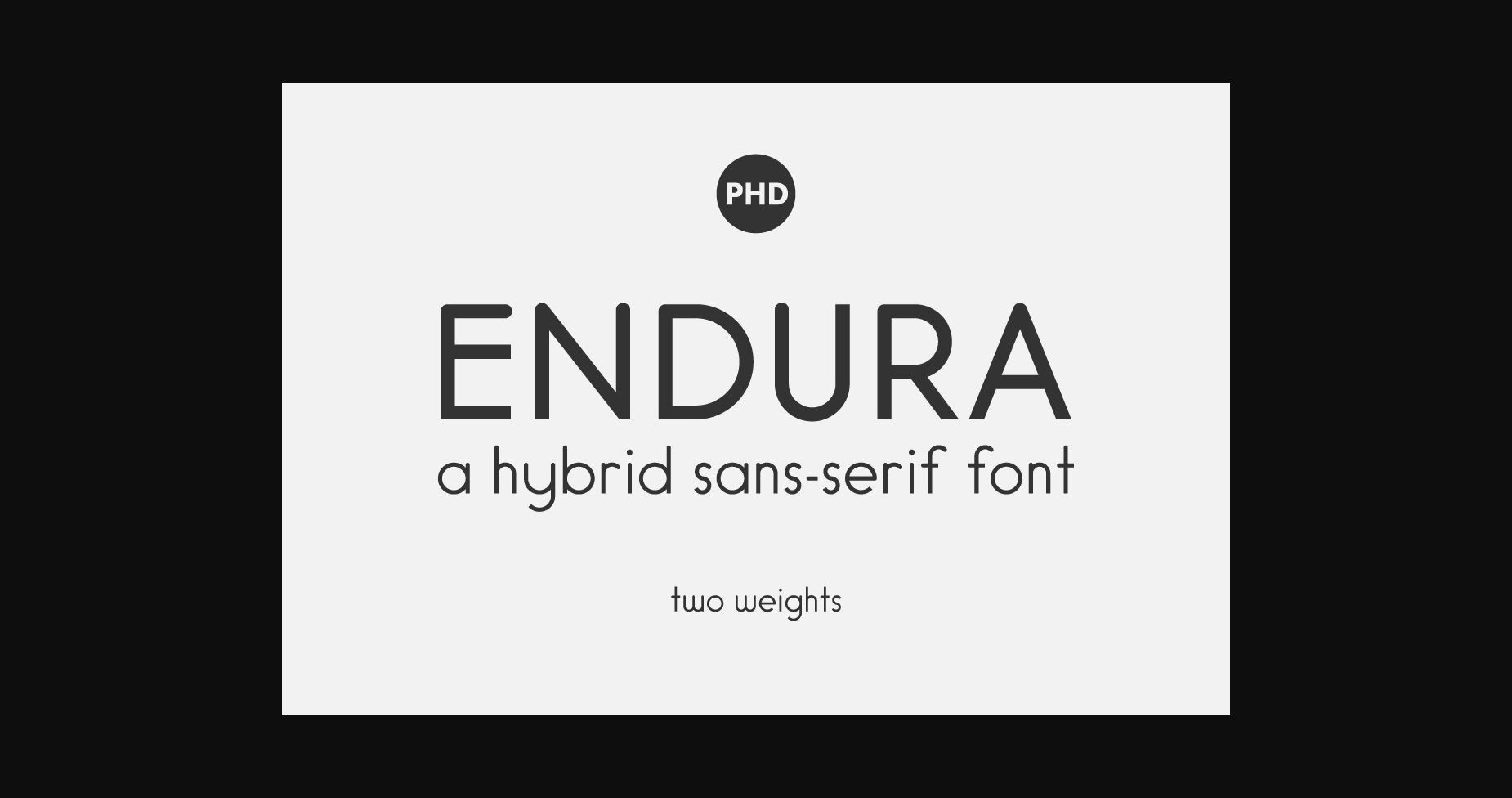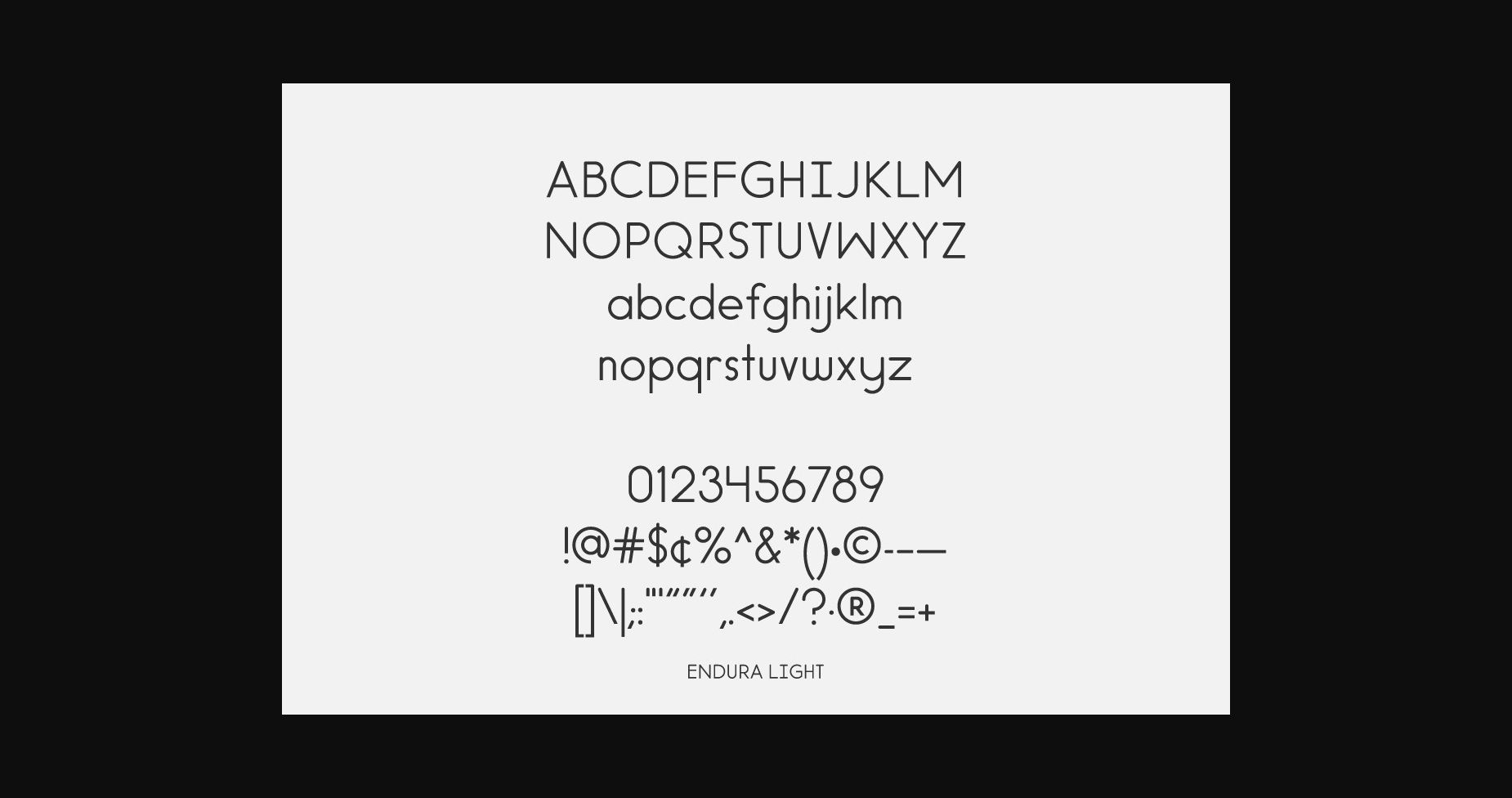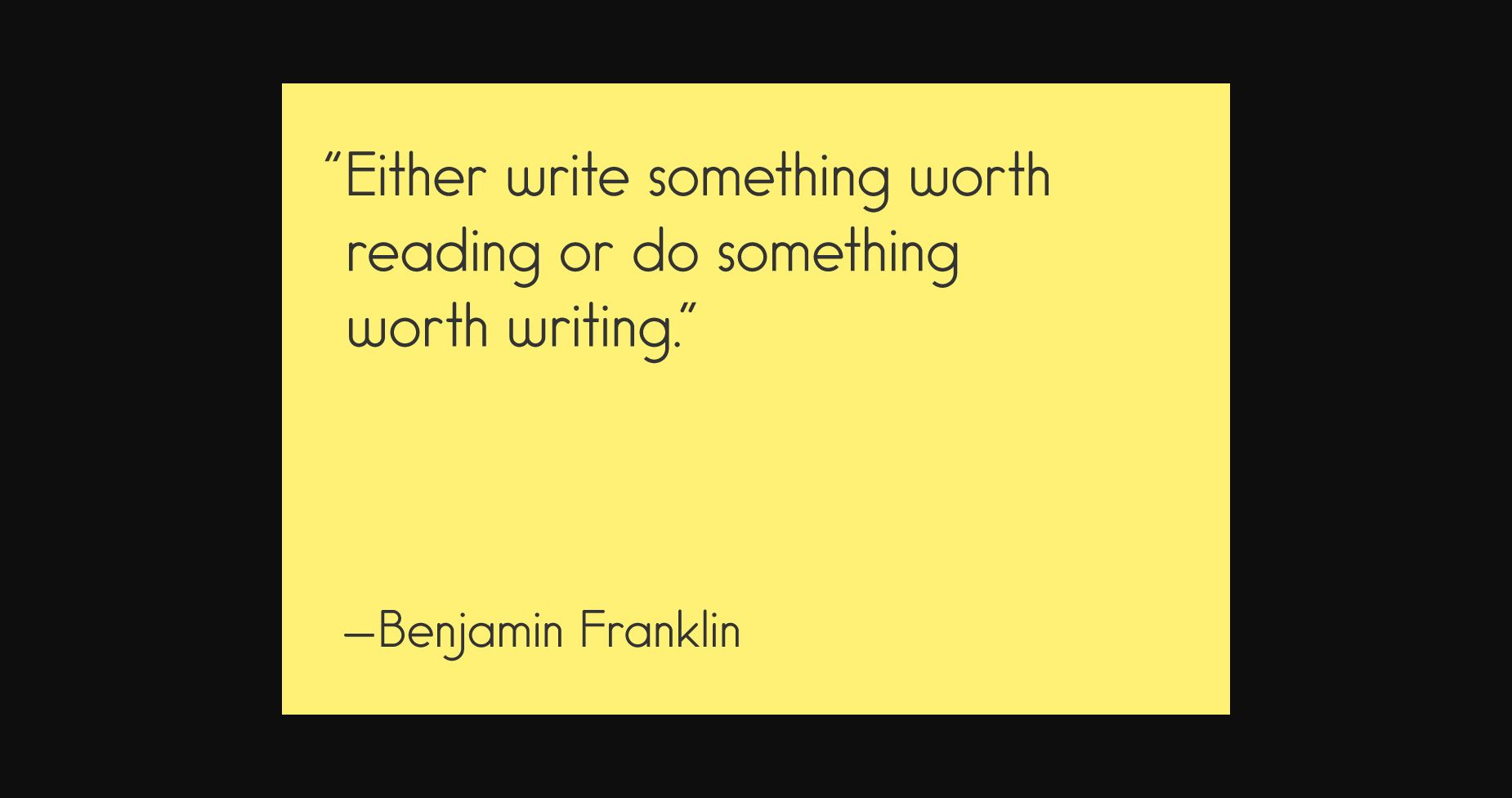
About Endura Font
Endura is a hybrid and timeless sans serif font. Due to its simplicity, it can be used in various creations. Your options are limitless!